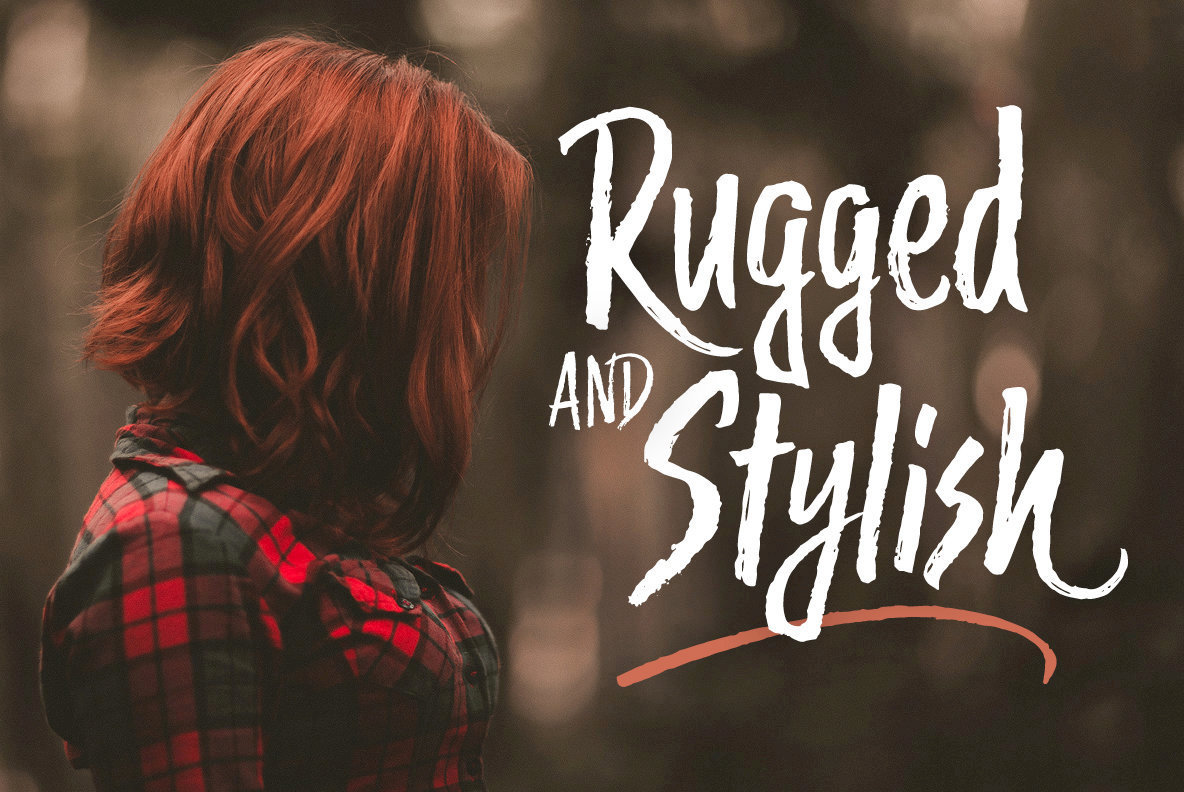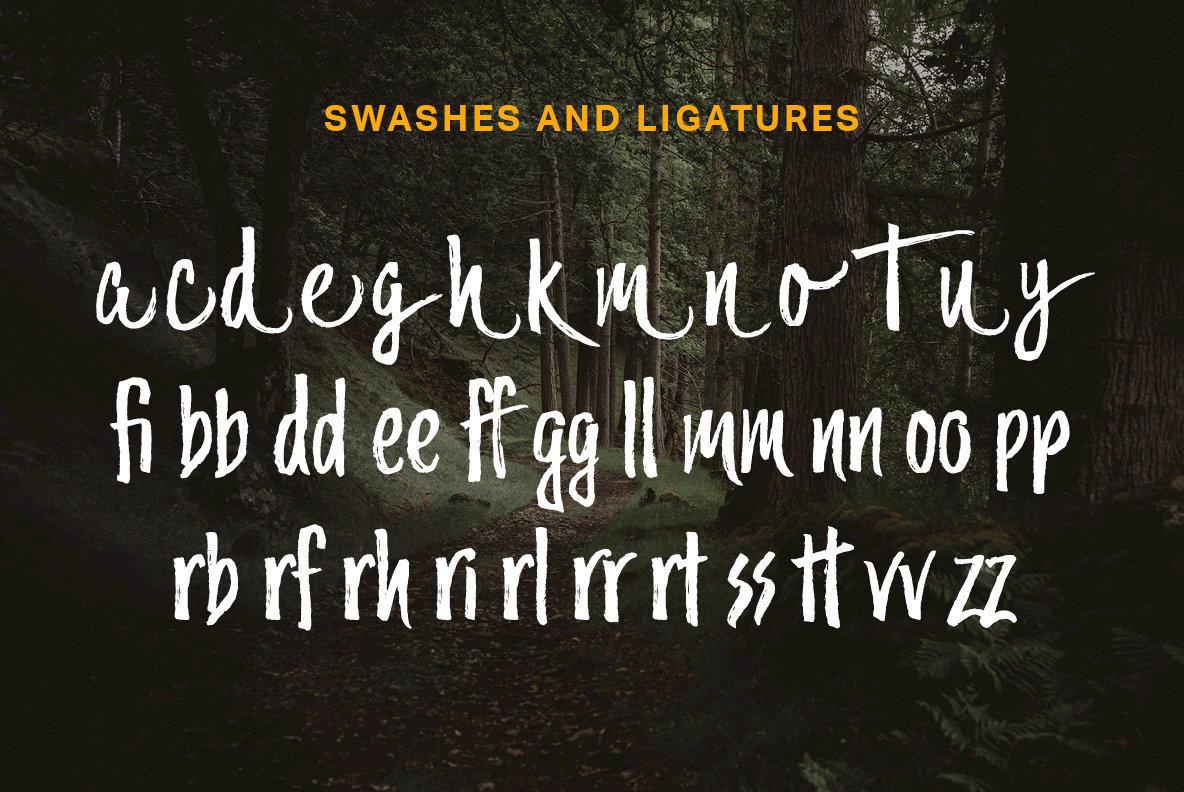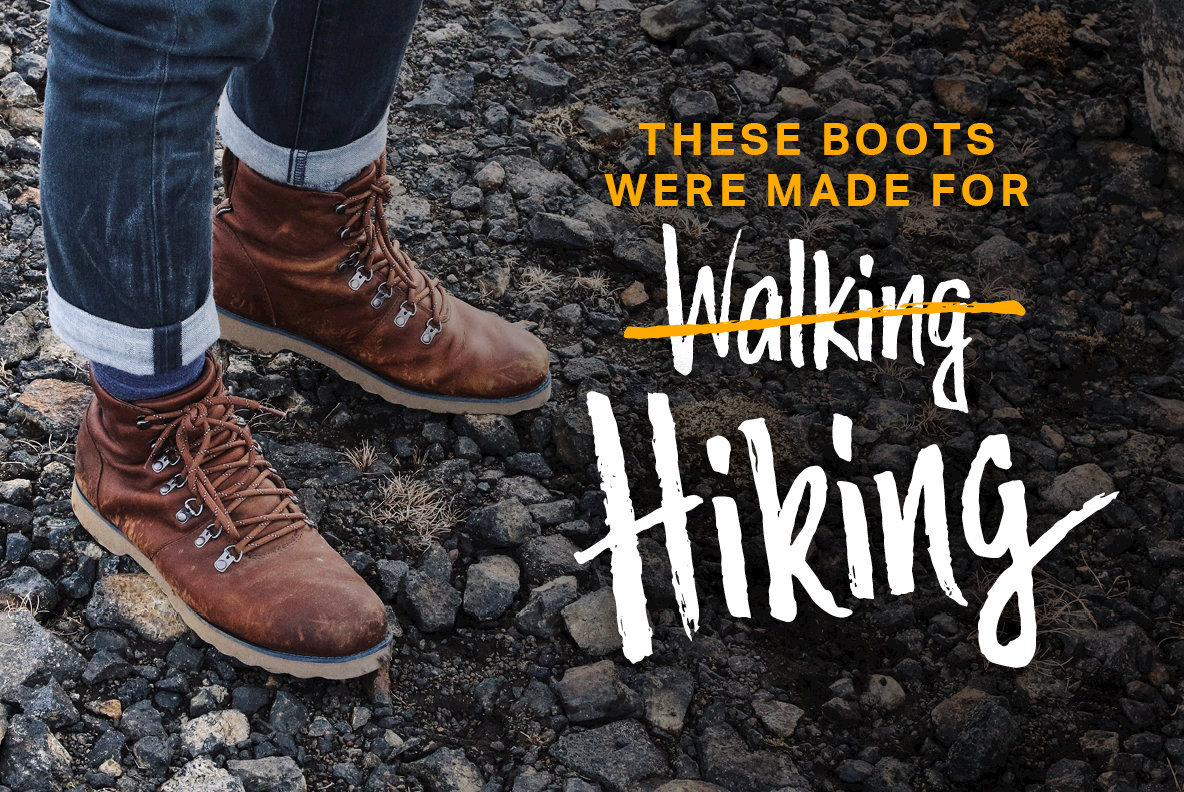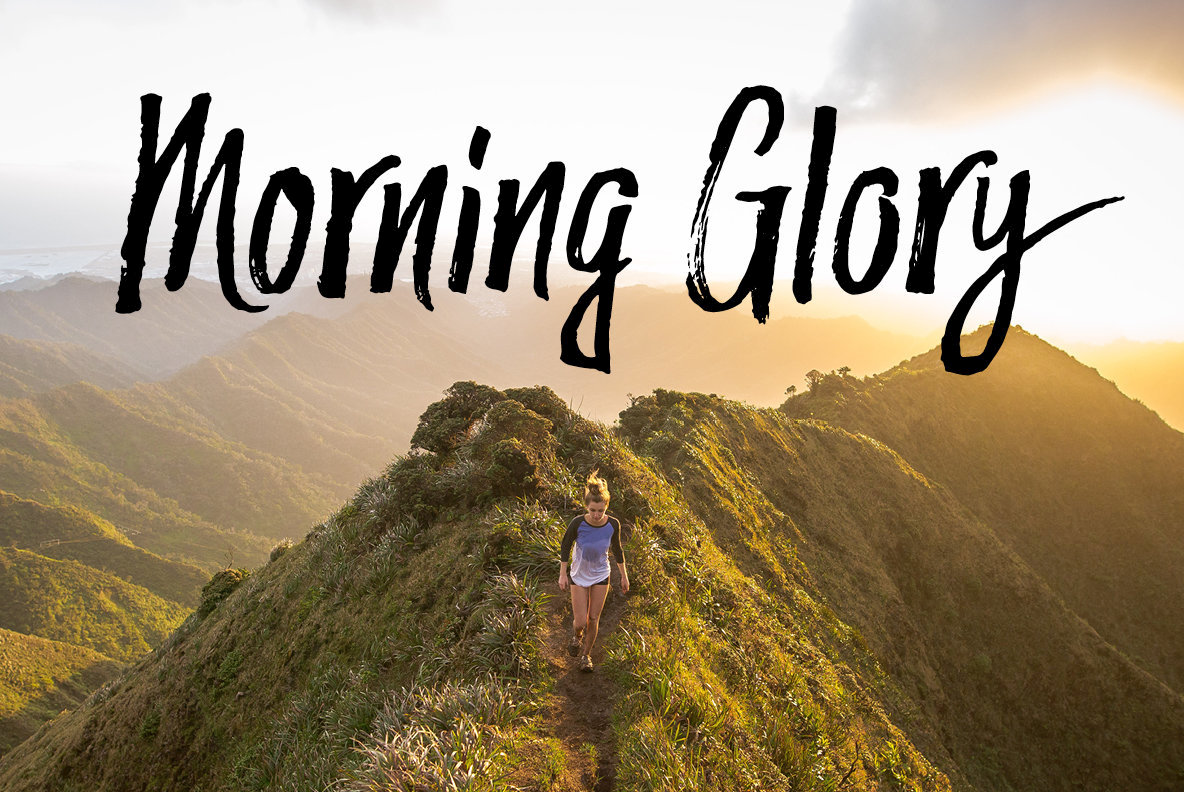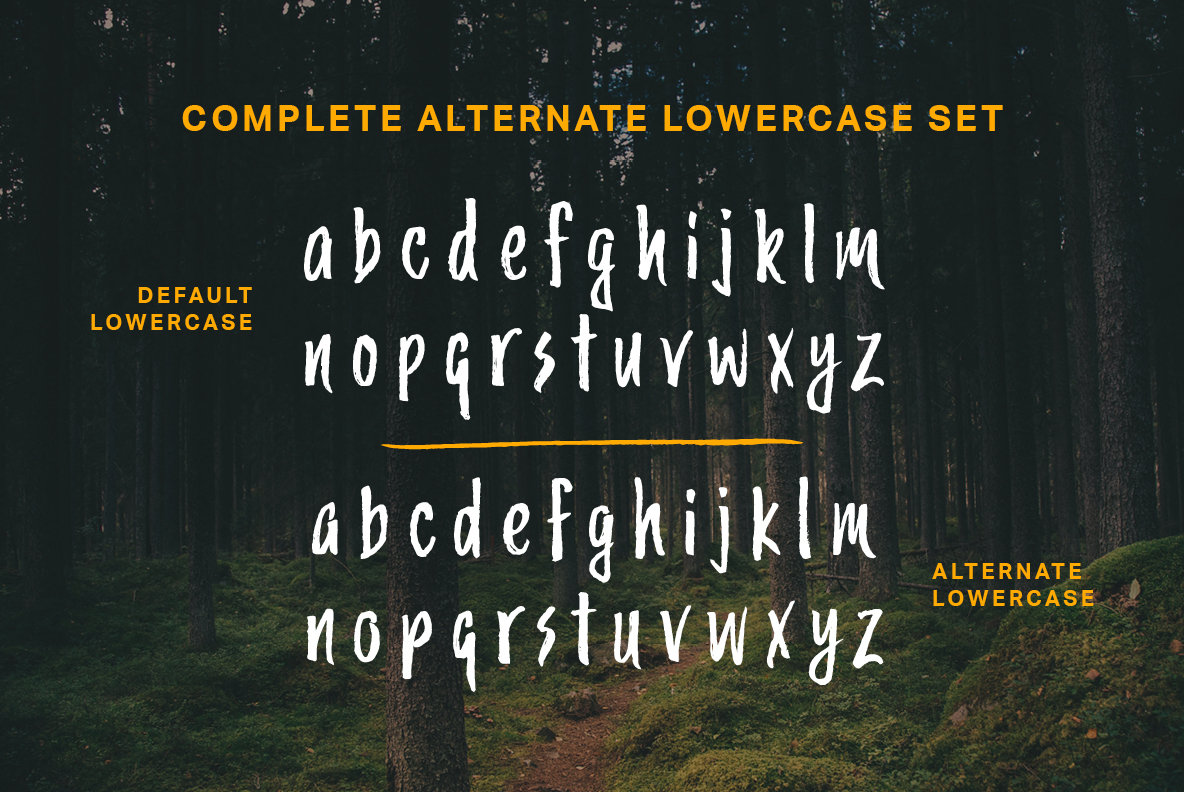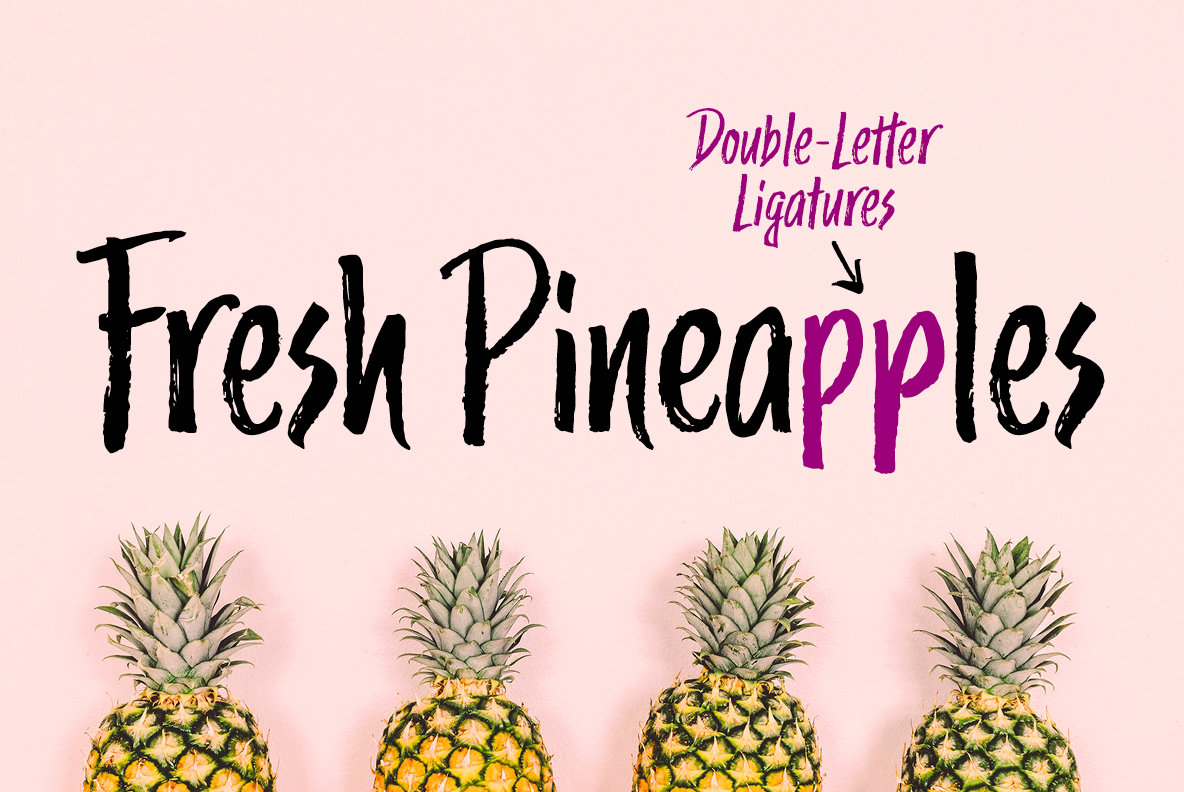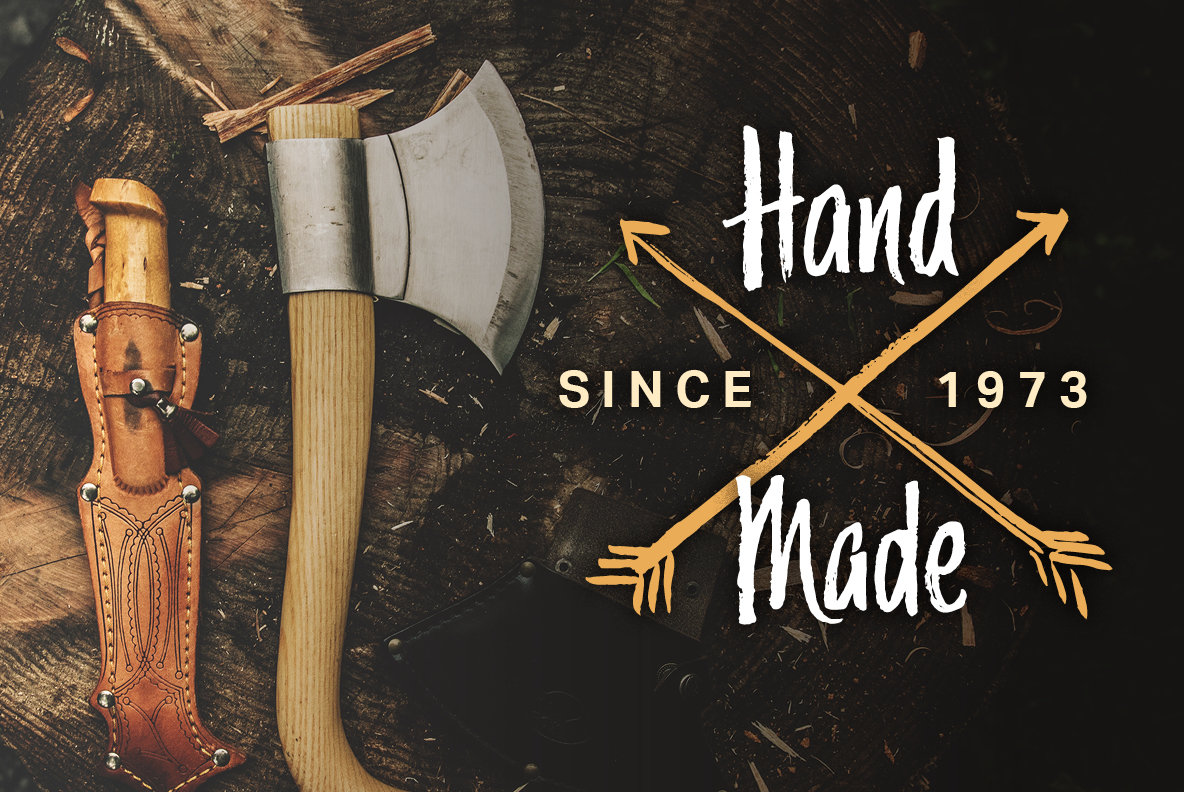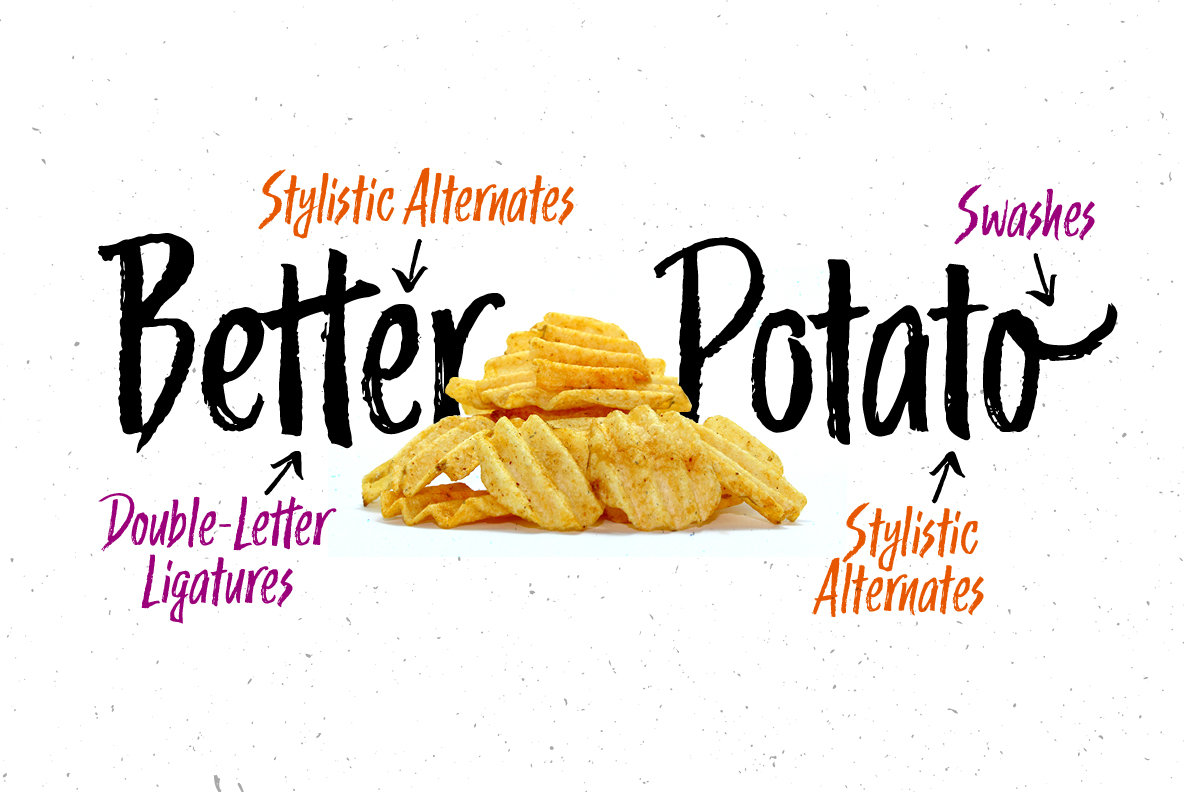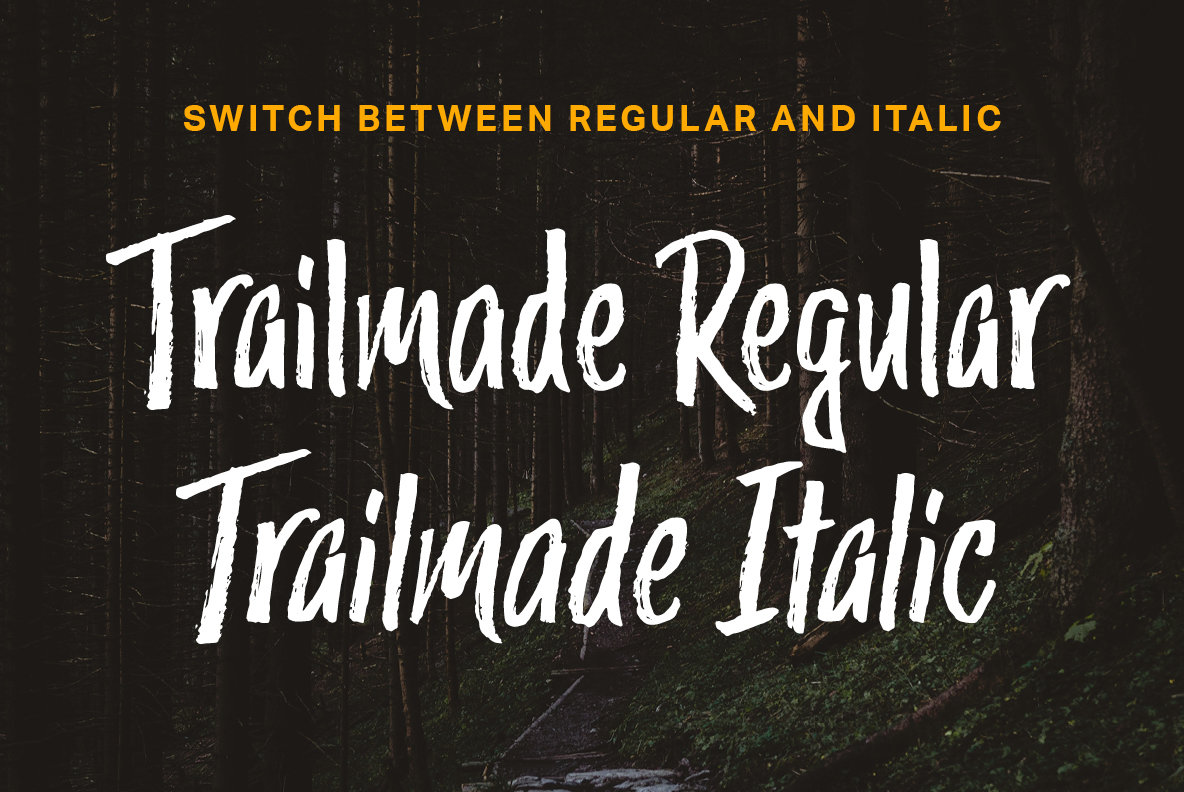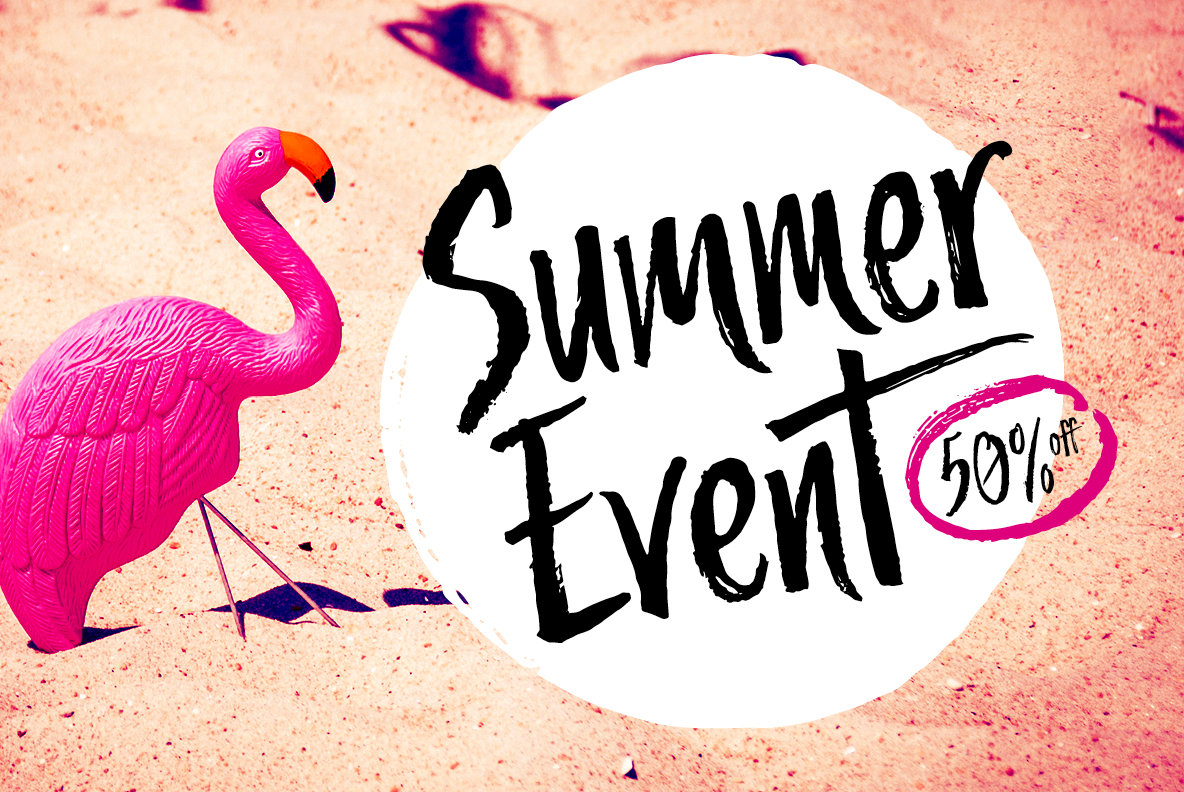
Trailmade Font
Trailmade is a rugged and stylish brush font with regular, italic, and extras styles. Explore an adventurous path with this typeface that ventures a little outside the typical brush script genre but still carries echoes of it. The upright design of the regular style has a confident appearance, while the italic style gives a little more of a signature look.
Hand-lettered with a brush pen on paper, Trailmade includes swash characters, automatic double-letter ligatures, and a complete second set of lowercase stylistic alternates to switch in and out for a more authentic feel. There is also a matching Extras font featuring a variety of lines and dingbats that will complement your typography.